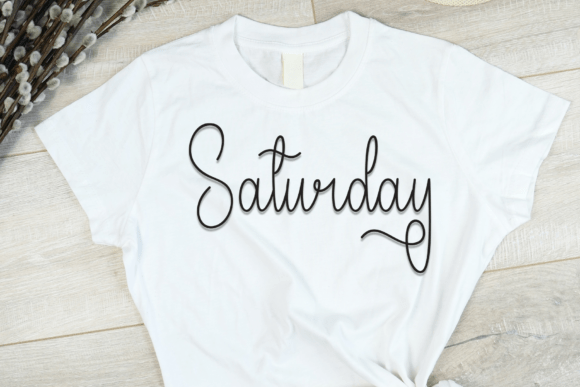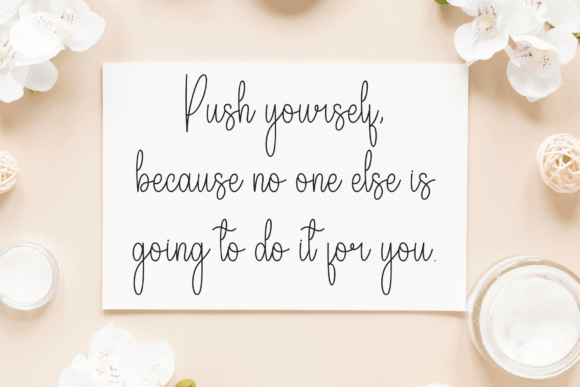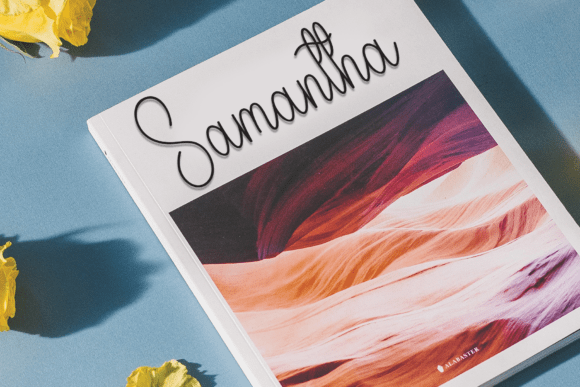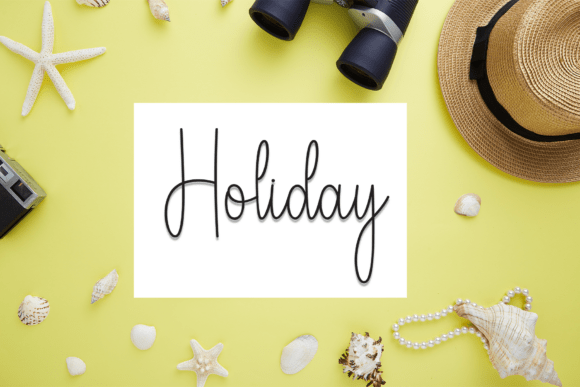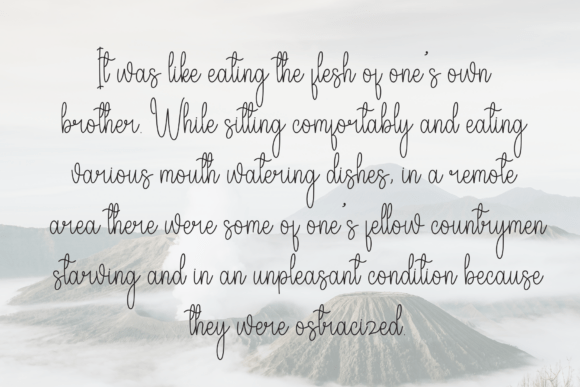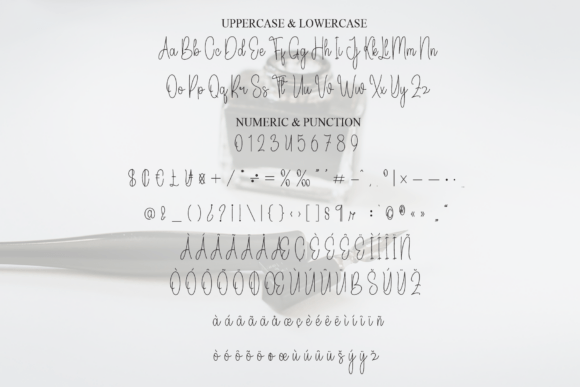
Elevate Your Designs with Calligraphy Font: A Perfect Blend of Elegance and Playfulness
Are you looking for a font that can add a touch of sophistication and warmth to your designs? Look no further than Calligraphy Font. This stylish handwritten script font is designed to blend modern elegance with a playful touch, making it perfect for a wide range of design projects. From logos and packaging to invitations and more, Calligraphy Font is the ideal choice for designers and crafters who want to add a personal feel to their work.
The Characteristics of Calligraphy Font
Calligraphy Font is characterized by its fluid strokes and charming curves. The font’s modern elegance is balanced by a playful touch, making it versatile and suitable for various design applications. The fluid strokes of Calligraphy Font give it a sense of movement and energy, while the charming curves add a touch of warmth and personality. Whether you’re designing a logo, packaging, or invitation, Calligraphy Font is sure to make your project stand out.
The Benefits of Using Calligraphy Font
So, why choose Calligraphy Font for your design projects? Here are just a few benefits of using this beautiful font:
- Warmth and Sophistication: Calligraphy Font adds a touch of warmth and sophistication to any design. Its elegant strokes and curves bring a sense of refinement and luxury to your projects.
- Creativity and Playfulness: Despite its elegance, Calligraphy Font has a playful touch that makes it perfect for designs that require a bit of whimsy and creativity.
- Versatility: Calligraphy Font is versatile and suitable for a wide range of design applications, from logos and packaging to invitations and more.
- Personal Feel: Calligraphy Font has a personal feel that makes it perfect for designs that require a human touch. Whether you’re designing a logo or an invitation, this font is sure to add a touch of personality to your project.
How to Use Calligraphy Font in Your Designs
Using Calligraphy Font in your designs is easy. Here are a few tips to get you started:
- Logos: Calligraphy Font is perfect for logos that require a touch of elegance and sophistication. Use it to create a logo that stands out and reflects your brand’s personality.
- Packaging: Add a touch of luxury to your packaging designs with Calligraphy Font. This font is perfect for product labels, packaging tags, and more.
- Invitations: Calligraphy Font is ideal for invitations that require a touch of elegance and whimsy. Use it to create wedding invitations, birthday invitations, and more.
- Social Media Graphics: Calligraphy Font can also be used to create social media graphics that stand out. Use it to create Facebook posts, Instagram stories, and more.
Tips for Getting the Most Out of Calligraphy Font
Here are a few tips for getting the most out of Calligraphy Font:
- Experiment with Colors: Calligraphy Font looks great in a variety of colors. Experiment with different colors to find the one that works best for your design.
- Play with Sizes: Calligraphy Font can be used in a variety of sizes. Play with different sizes to find the one that works best for your design.
- Add Texture and Patterns: Add texture and patterns to your design to give it a more creative and playful feel.
Calligraphy Font is a beautiful and versatile font that can add a touch of elegance and whimsy to any design. Its fluid strokes and charming curves make it perfect for a wide range of design applications, from logos and packaging to invitations and more. Whether you’re a designer or crafter, Calligraphy Font is sure to become a favorite in your design arsenal. So why wait? Download Calligraphy Font today and start elevating your designs to the next level.